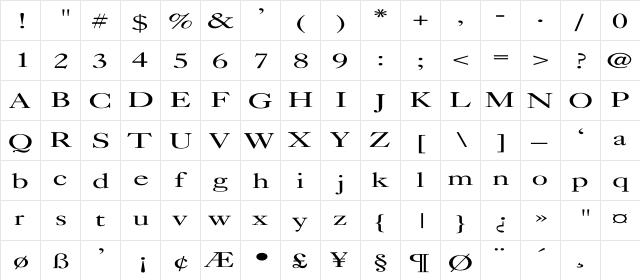
Caslon-Light Ex Regular
Design Context for Caslon-Light Ex Typeface
Caslon-Light Ex offers clean, dependable letterforms without strong stylistic allegiance, making it a practical choice for designers who need flexibility. The delicate stroke weight brings airiness and refinement to layouts.